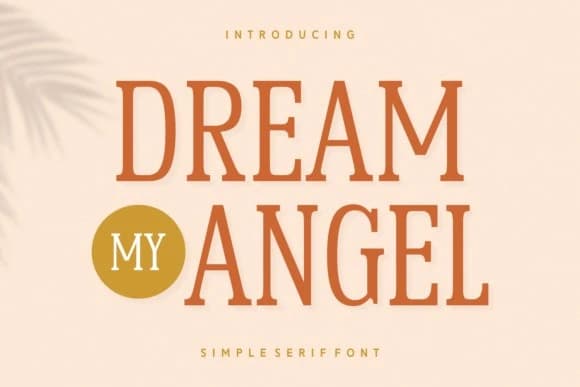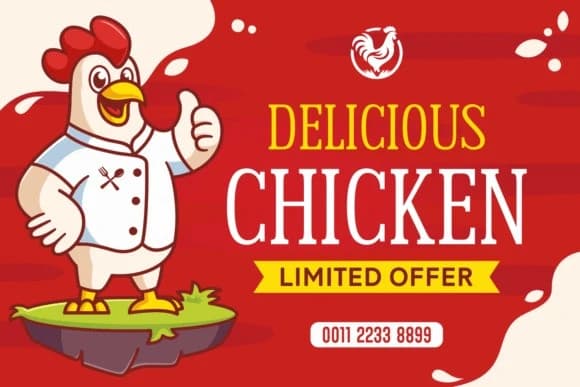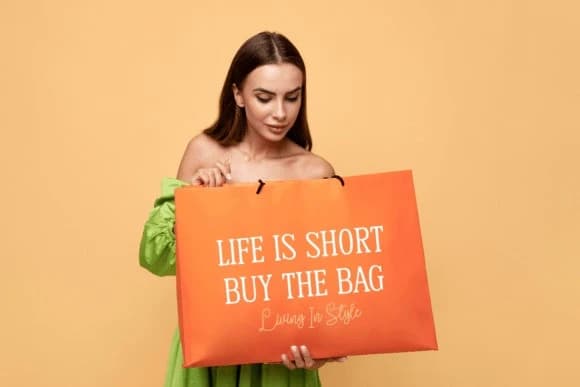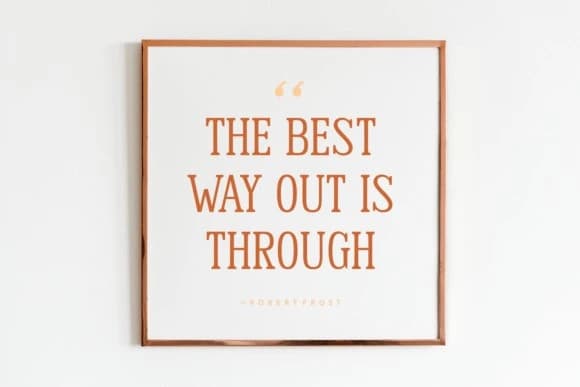
Dream My Angel Font
Dream My Angel Font encompasses an alluring blend of serif fonts, exuding elegance and modernity, imbued with a photographic essence and distinctive accents. Perfect for apparel design, its authentic strokes marry well with the aesthetics of book covers and textual content.